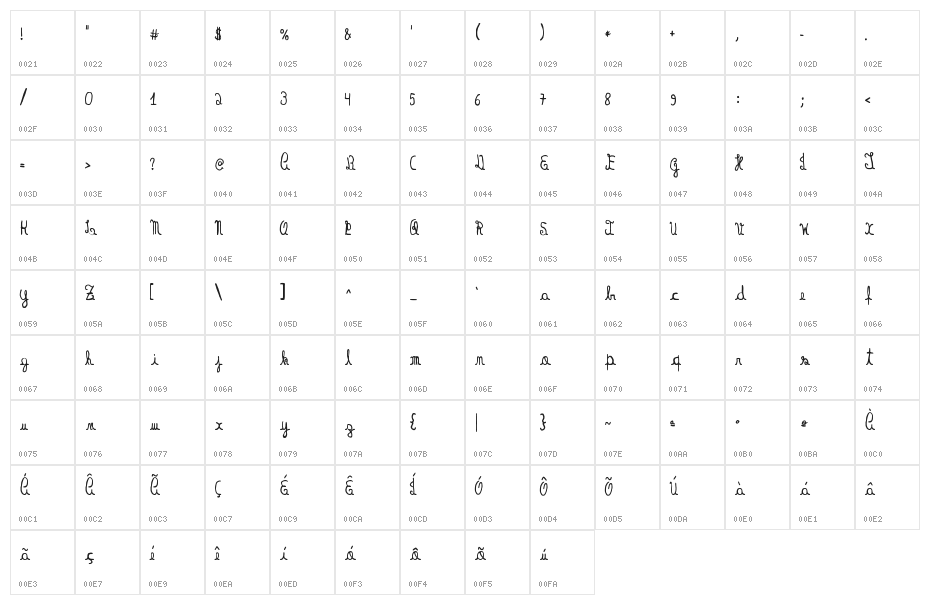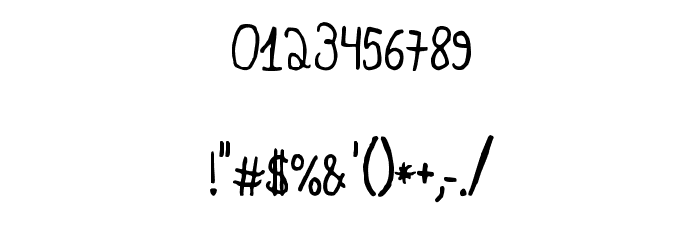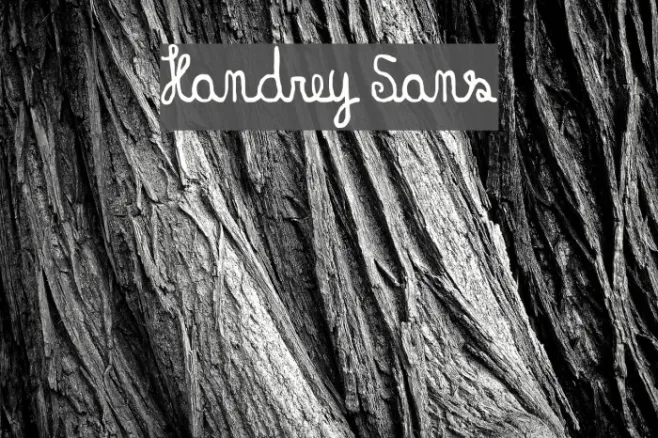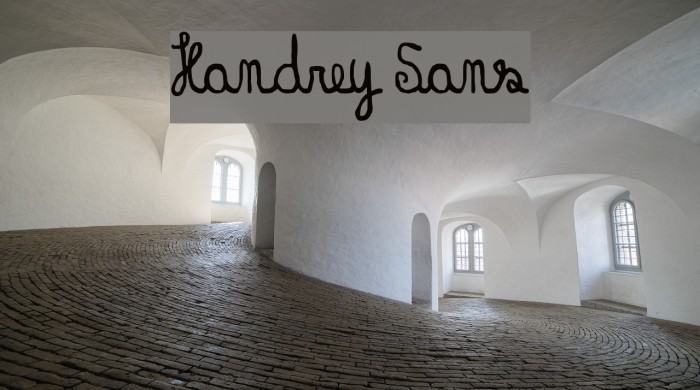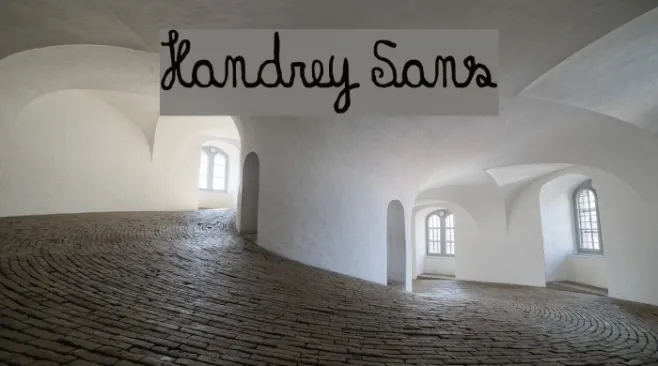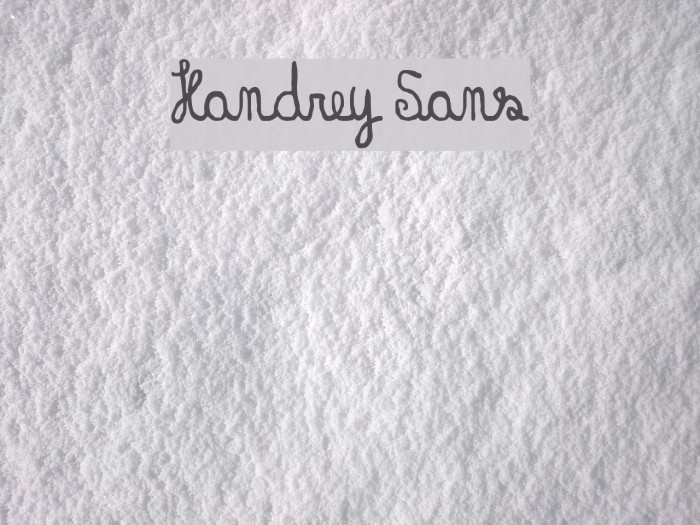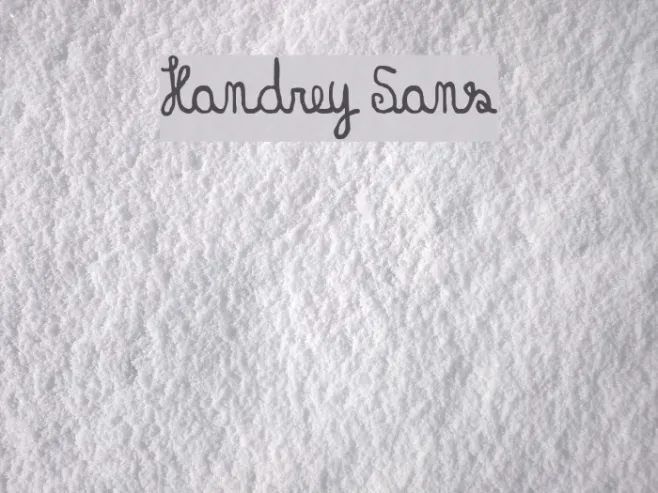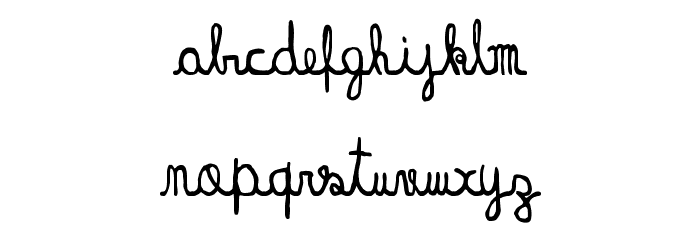
Handrey Sans Font
Handrey Sans Description
This font features a unique, playful design with a handwritten style that exudes a casual and artistic vibe. The characters are interconnected with a fluid, continuous stroke, giving it a cohesive and organic appearance. The uppercase letters maintain a consistent height, while the lowercase letters exhibit a slight variation in size, adding to its charm. The numbers and special characters are crafted with the same whimsical touch, ensuring uniformity across the font. Its distinctive style makes it stand out, making it ideal for creative projects that require a personal touch.
| Use Case | Logos, Invitations, Creative projects |
| Proposed Projects | Ideal for greeting cards, invitations, personal branding, and creative projects that require a unique, personal touch. |